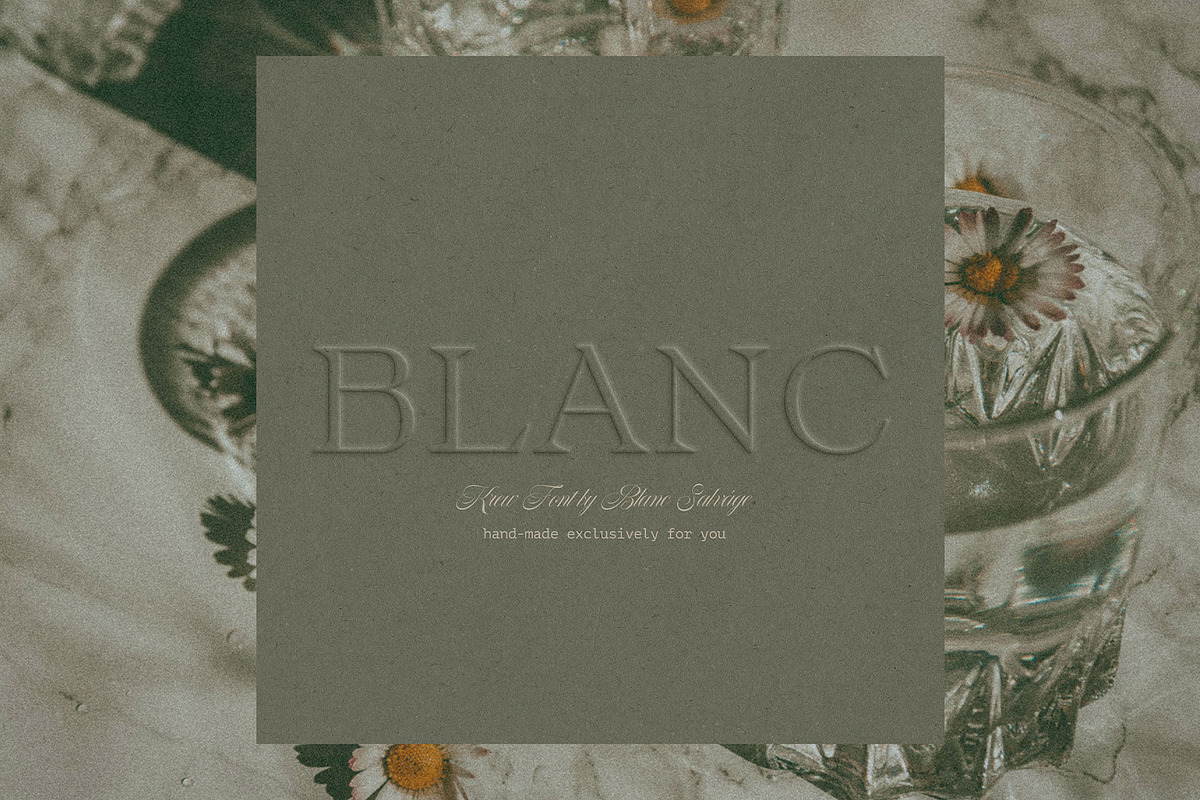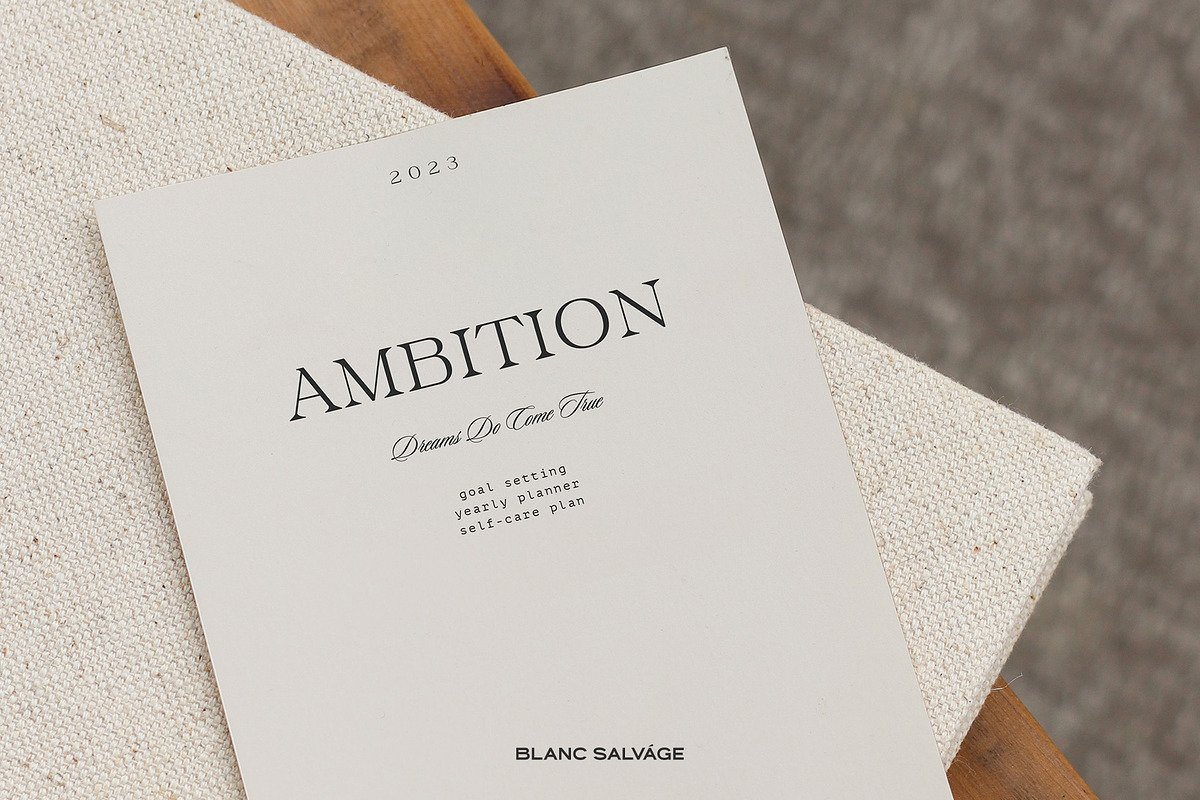
Krew Elegant Serif
Here she is, the serif you’ve been waiting for – Krew. Her elegance is undeniable, along with her cuneate serifs that transcend beauty and strength. Krew is the ultimate definition of luxury and will take your bespoke brand concepts to the next level.
Inspired by my amazing community, she was created as a special request by a friend of mine, Ilaria. And of course being from New Orleans, I had to put a spin on the name Crew to Krew. Krewe is an organization that celebrates Carnival. And as I was creating this beauty, it just so happened to be Mardi Gras season. The timing was perfect for the two to unite and for Krew to be born. Krew truly blossomed into a font that is classy and timeless.
- Krew (uppercase + lowercase)
- Foreign language support
- Alternate characters